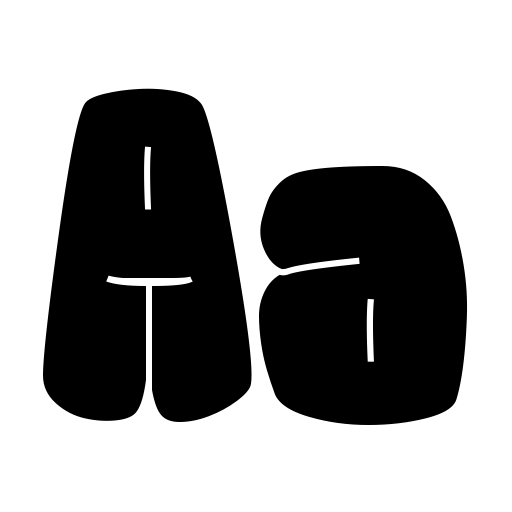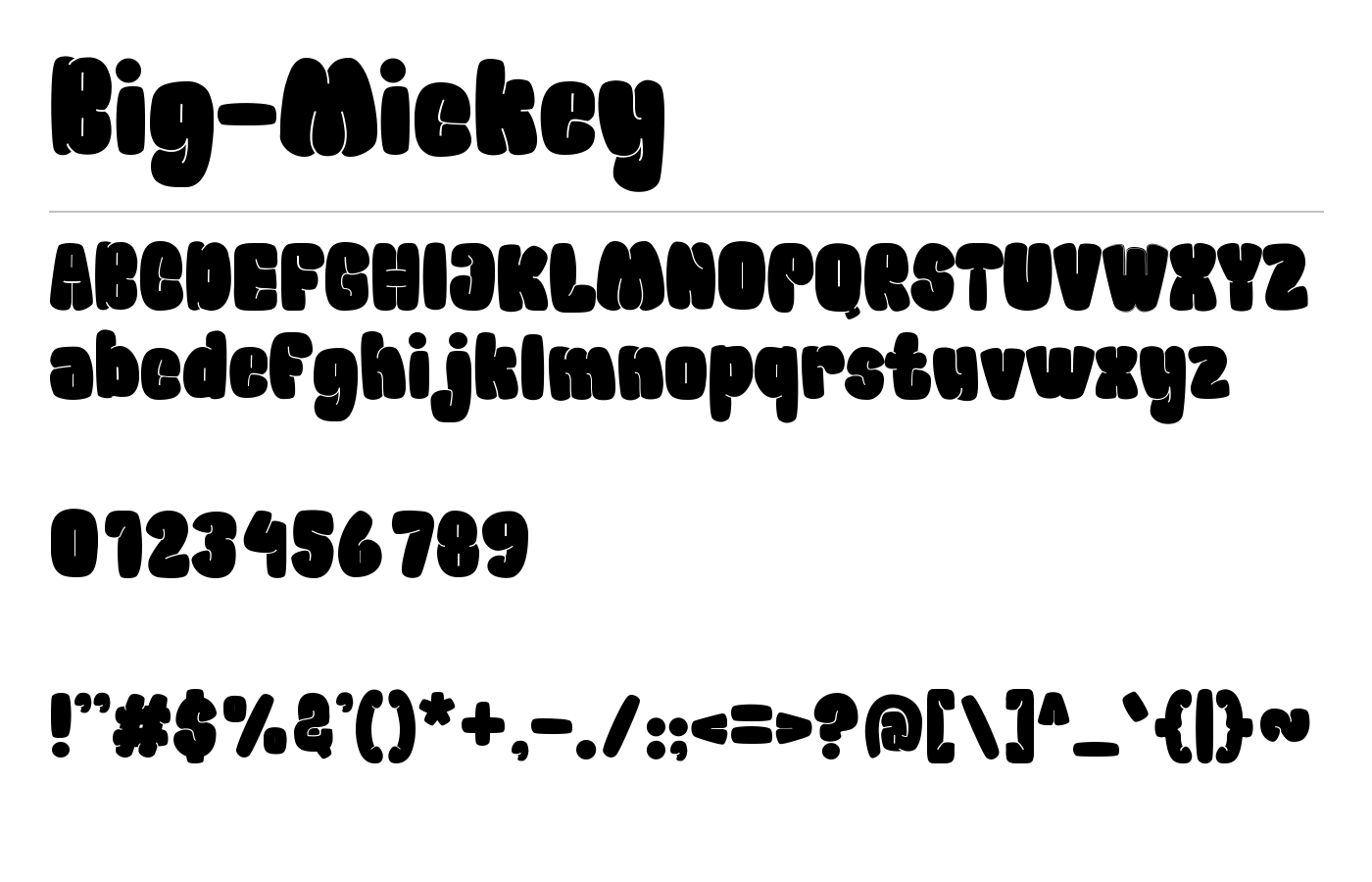
Big-Mickey is a bold, playful sans serif font with a chunky, rounded style that gives it a fun and approachable feel. Its heavy weight and tight spacing make it perfect for eye-catching headlines, logos, and designs that want to convey energy and friendliness. This font works especially well for children’s products, casual branding, and creative posters where a lively and informal tone is desired.
Big-Mickey Font
About Big-Mickey Font
| Font family | Big-Mickey Font |
| Designer | MODESTYPE TEAM |